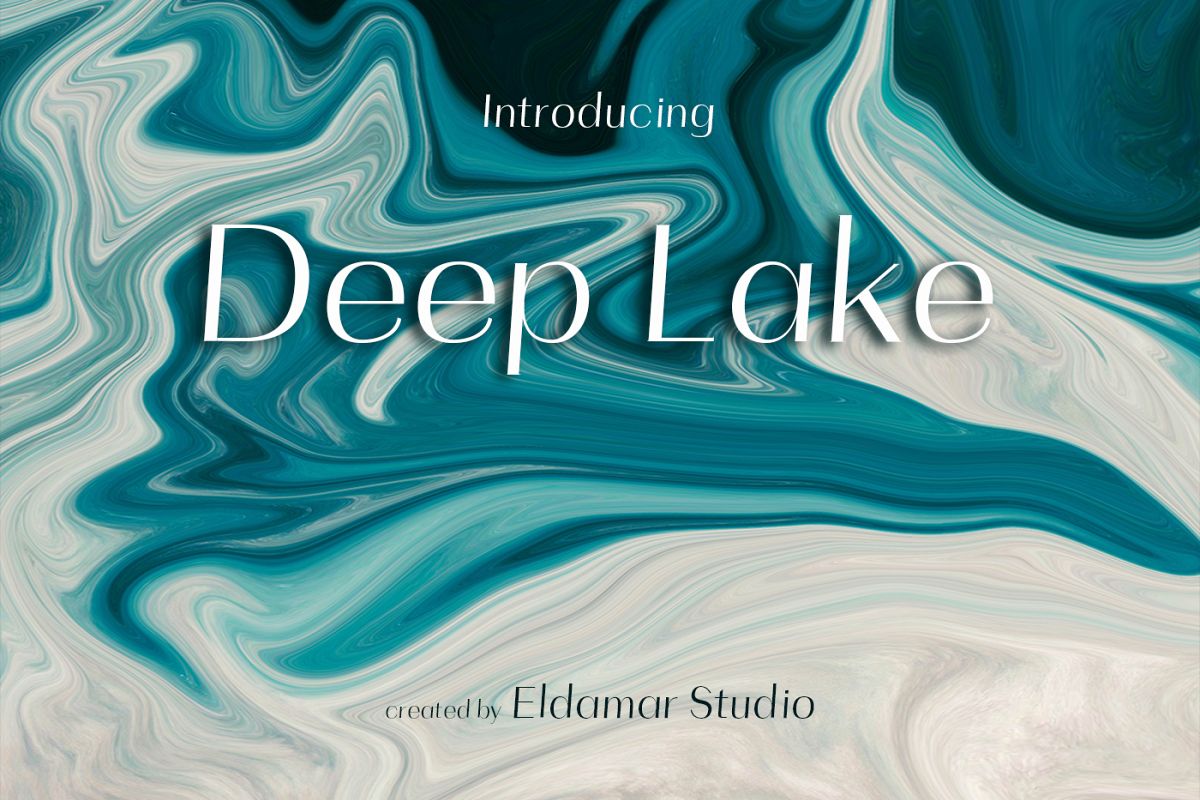
Created By Eldamar Studio
Deep Lake Font
it's a wonderful font with a unique, detailed and handmade look.
These
fonts looks amazing in all caps with a wide-set spacing if you want to
try a classy look, or beautiful on its own in capital and lowercase
letters for something completely timeless.
Perfect for gorgeous logos, displays, headers, invitations, save the dates, weddings, titles, web layouts and branding, etc.